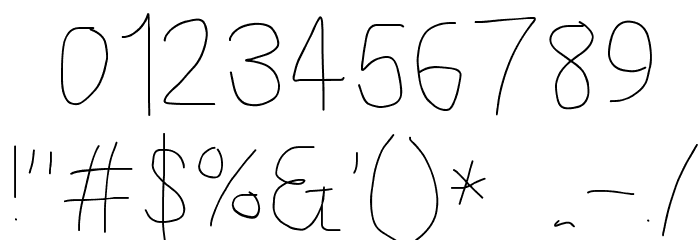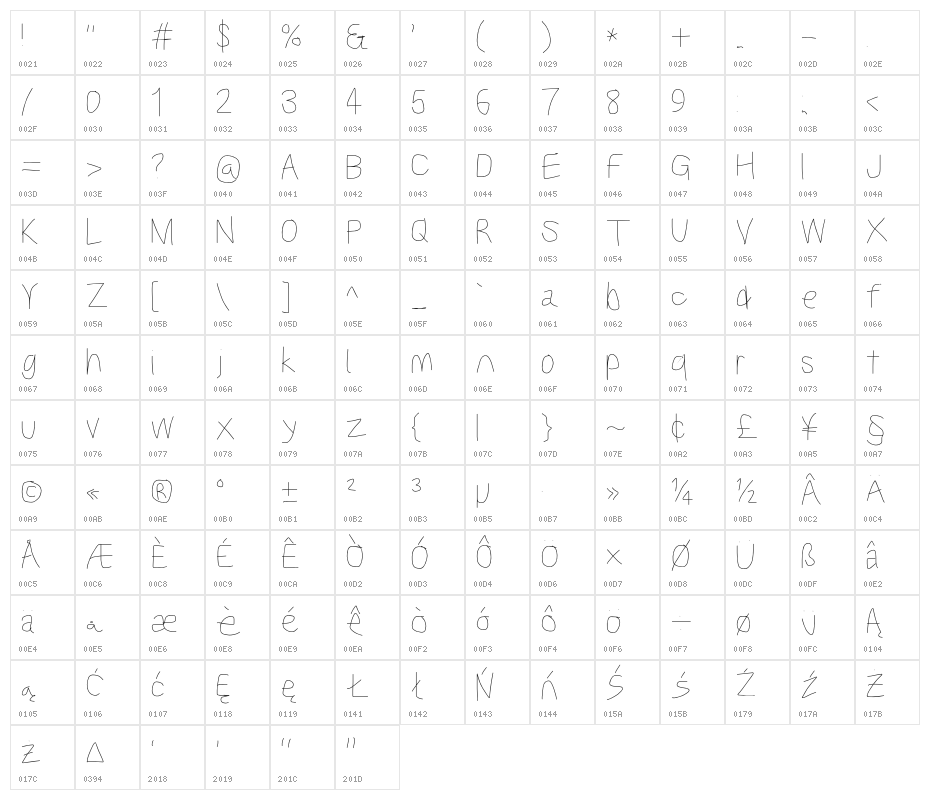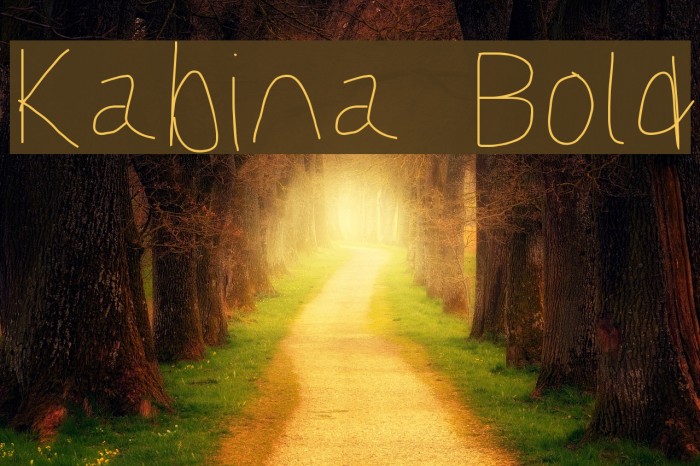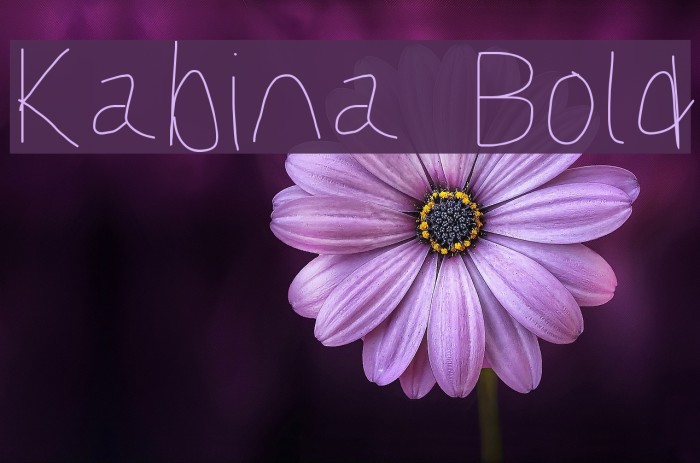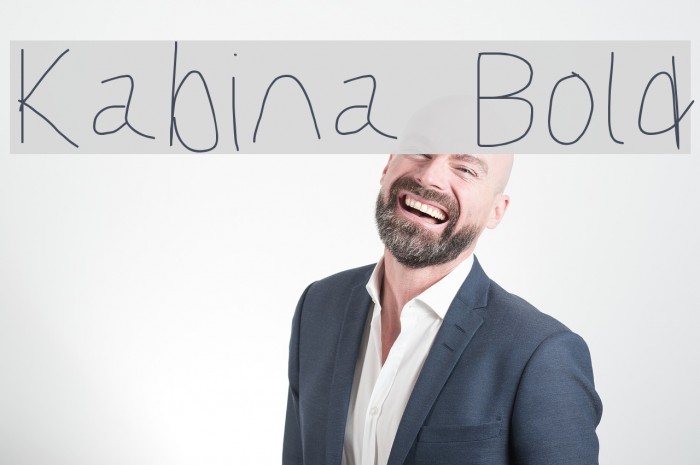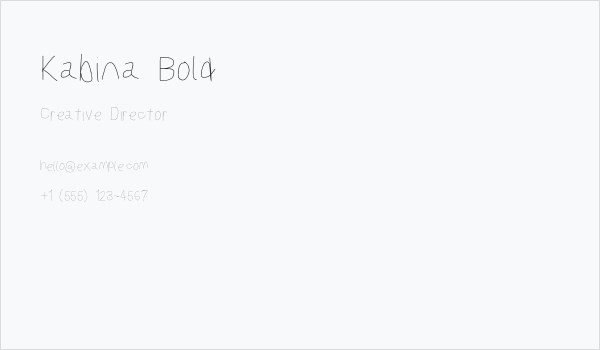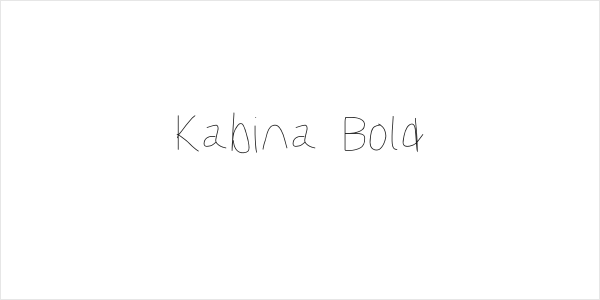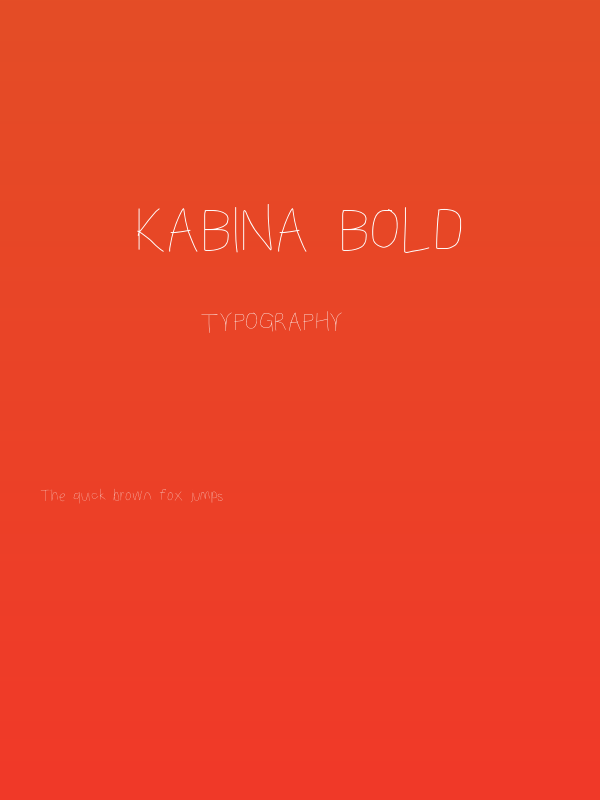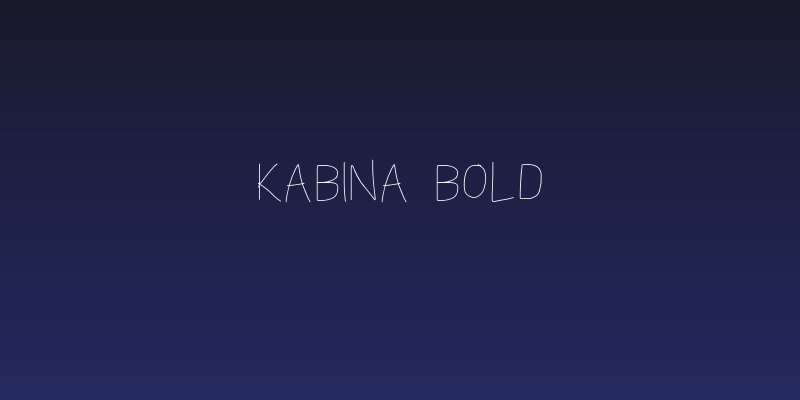
Kabina Bold Font
Kabina Bold Description
This font features a handwritten style with a casual and playful appearance. The characters are slightly irregular, giving it a personal and informal touch. The strokes are thin and consistent, with a slight slant that adds to its dynamic feel. The uppercase letters are tall and narrow, while the lowercase letters maintain a more rounded and open form. The numbers and special characters follow the same playful and informal style, making it suitable for creative and artistic projects.
| Proposed Projects | Ideal for greeting cards, personal notes, informal invitations, and creative branding. |